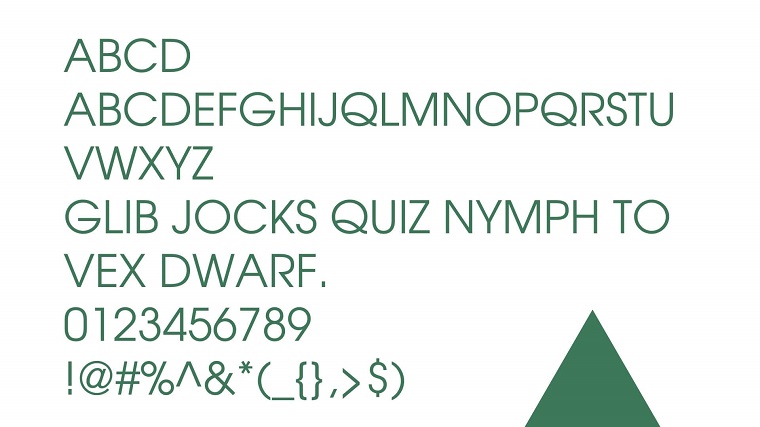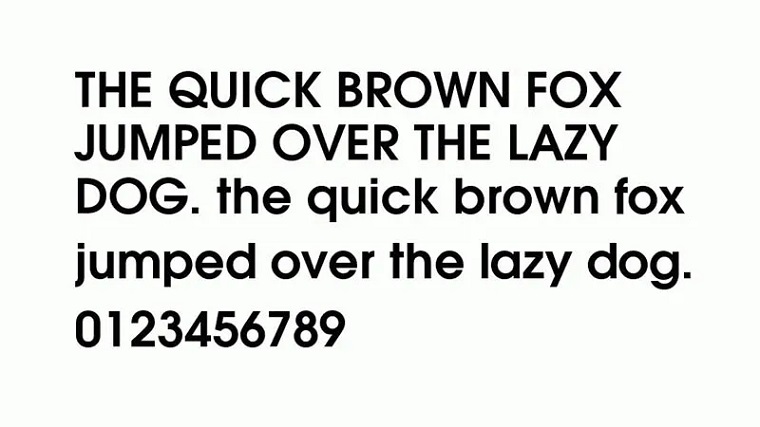
Adidas Font is the unique style of writing that the famous sports brand, Adidas, uses for its logo and designs. It’s like the unique clothes words wear when they want to look sporty and relaxed! This font adds an athletic and dynamic touch to words, making them look like they’re ready for a big game.
Adidas Font makes letters look speedy and robust, like a fast runner. It gives them a sporty style that’s great on sports stuff like shoes and clothes. People like it because it makes their things look sporty and relaxed, just right for sports fans and athletes. This free font is only available in OTF & TTF format that you can easily download.
Reasons to Use Adidas Font
Using Adidas Font is like putting on your favorite sports jersey! You can find this font style in some design programs. When you use it, your words get that cool Adidas Font look.
It’s great for making sports posters, designing team logos, and adding a dash of athleticism to your writing. With Adidas Font, your words become like champions in the world of sports!
This gothic typeface is inspired by the logo of the famous sport-wear brand Addidas and is available for free.
The primary typeface that has been used in the logo of this brand logo is known as the ITC Avant Garde Gothic Std Demi.
The logo of this famous shoe brand Addidas is utterly unique in its own way this typeface comprises the 3 leaves representing the three different countries.